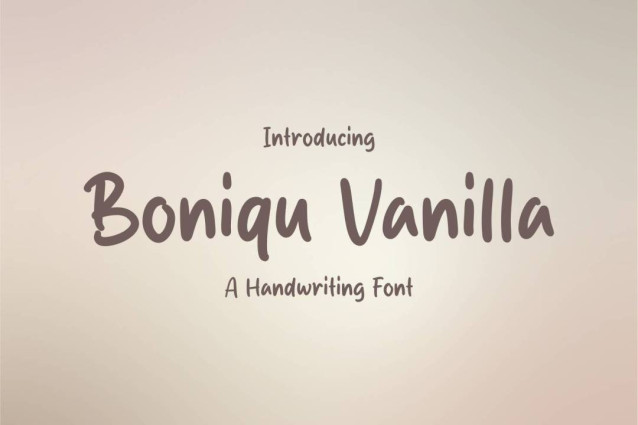
Boniqu Vanilla Font
Boniqu Vanilla Font is a simple and friendly handwritten font. Its natural and unique style makes it incredibly fitting to a large pool of designs. The only limit is your imagination!